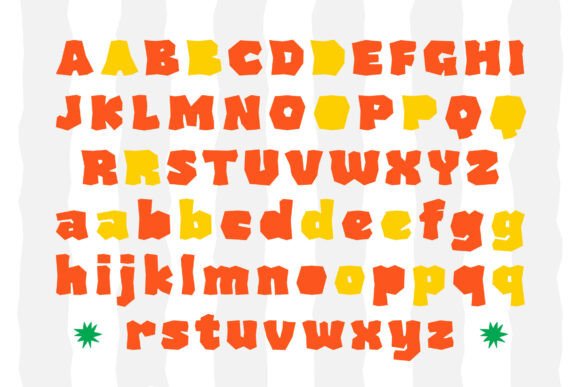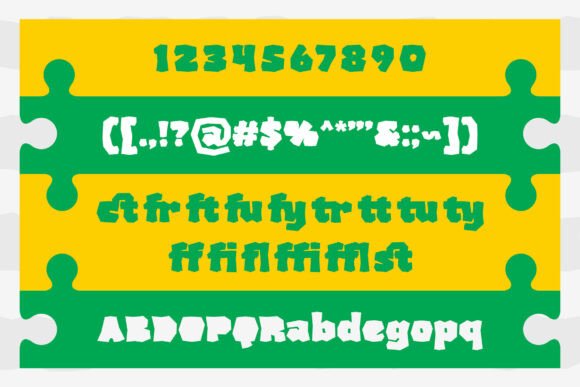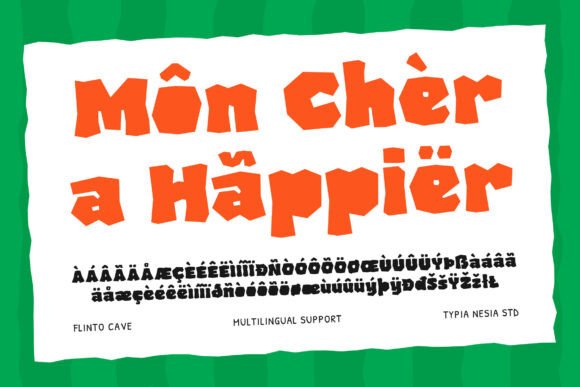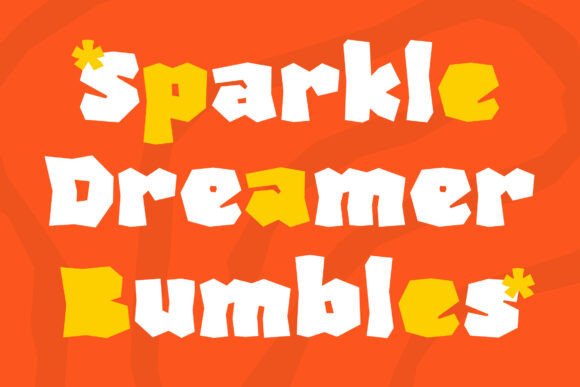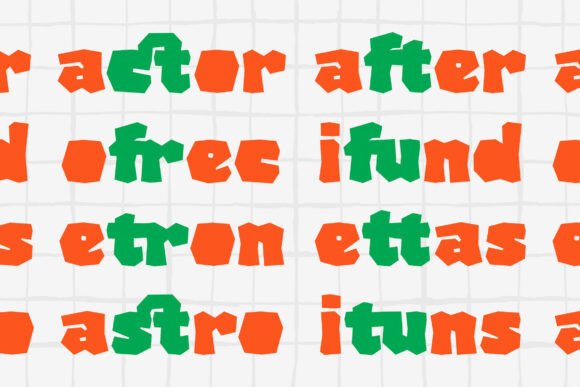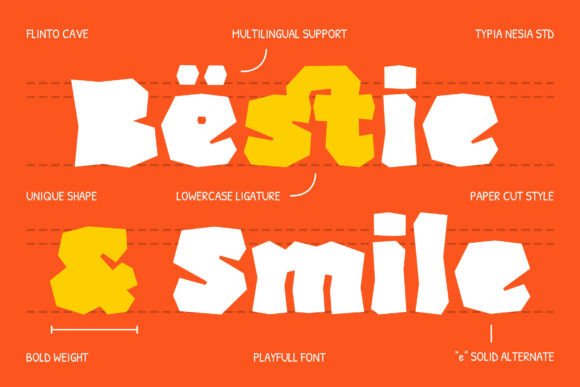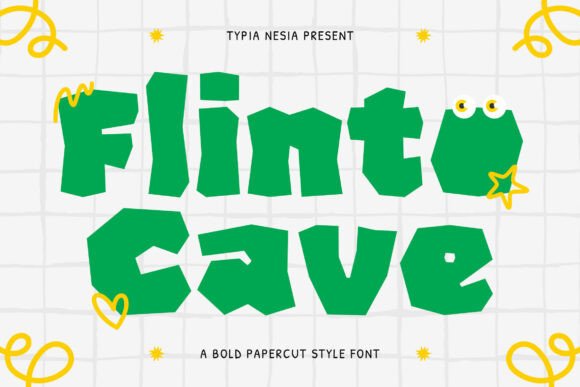
Introducing Flinto Cave: The Ultimate Bold Papercut Font for Creative Projects
Are you tired of using the same old fonts for your design projects? Do you want to add a touch of handmade charm and textured appearance to your work? Look no further than Flinto Cave, a bold and chunky display font that perfectly captures the essence of a paper cutout or papercut craft style.
What is Flinto Cave?
Flinto Cave is a distinctive and highly playful typeface that is perfect for designers and crafters looking to add a unique and vibrant touch to their projects. This modern fun and playful cartoon display font is designed to resemble the textured appearance of a paper cutout or papercut craft, giving your work a one-of-a-kind look that is sure to stand out.
Flinto Cave is an excellent choice for a wide range of projects, including:
- Book covers: Add a touch of whimsy and charm to your book covers with Flinto Cave’s bold and chunky design.
- Educational materials: Make learning fun and engaging with Flinto Cave’s playful and approachable aesthetic.
- Cartoon branding: Bring your cartoon characters to life with Flinto Cave’s bold and colorful design.
- Packaging for toys: Add a touch of fun and playfulness to your toy packaging with Flinto Cave’s modern and vibrant style.
- Logo design for cafes, coffee shops, or bakeries: Create a unique and memorable logo for your business with Flinto Cave’s sturdy and fun aesthetic.
- Game titles: Add a touch of retro charm to your game titles with Flinto Cave’s bold and chunky design.
- Arcade and retro-themed applications: Bring a touch of nostalgia to your projects with Flinto Cave’s vintage-inspired design.
Key Features of Flinto Cave
So what sets Flinto Cave apart from other fonts? Here are just a few of its key features:
- Bold and chunky design: Flinto Cave’s bold and chunky design makes it perfect for headlines, titles, and other display text.
- Handmade charm: Flinto Cave’s textured appearance gives it a unique, handmade charm that is sure to add a touch of personality to your projects.
- Playful and approachable: Flinto Cave’s playful and approachable aesthetic makes it perfect for projects that require a touch of whimsy and fun.
- Modern and vibrant: Flinto Cave’s modern and vibrant style makes it perfect for projects that require a bold and eye-catching design.
Why Choose Flinto Cave?
So why should you choose Flinto Cave for your next project? Here are just a few reasons:
- Unique and memorable: Flinto Cave’s unique and bold design is sure to make your project stand out from the crowd.
- Versatile: Flinto Cave is perfect for a wide range of projects, from book covers to game titles.
- Vibrant and full of character: Flinto Cave’s vibrant and playful design is sure to add a touch of personality to your project.